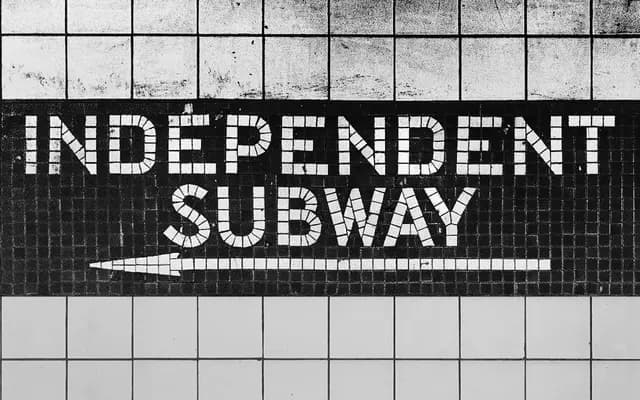
Name Mono
A monospaced grotesque drawn from the tile mosaic lettering of the NYC Subway, built for code and data use with expressive italics and extensive OpenType alternates.
Derived from the same source material as Name Sans — the hand-laid ceramic name tablets of the New York City Subway — Name Mono translates those part-geometric, part-grotesque letterforms into a fixed-width family of 18 static styles and 2 variable fonts spanning nine weights. The italics depart deliberately from the uprights, offering more visual contrast and switchable alternates to aid readability in code editors. Over 300 languages across Extended Latin are supported, alongside features including optional code ligatures, slashed zero, oldstyle figures and brutalist punctuation.
A monospaced typeface drawing on the part-geometric, part-grotesque letter construction of NYC Subway tile mosaics, with industrial detailing and expressive italics suited to code and data contexts.